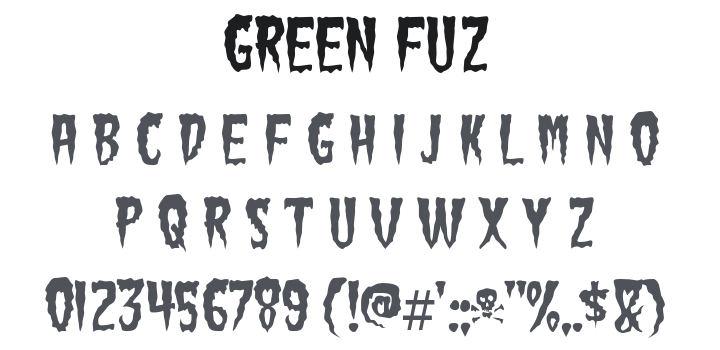
Green Fuz Font
About Green Fuz
Green Fuz is a gruesome horror display typeface inspired by 1950s American horror comics — its wobbly, dripping letterforms feel like they were scrawled in slime, with ghastly organic wobbles that ooze menace and kitschy B-movie charm. Perfect for Halloween designs, horror game titles, spooky event posters, haunted house signage, and any headline that needs bloodcurdling retro-horror atmosphere.